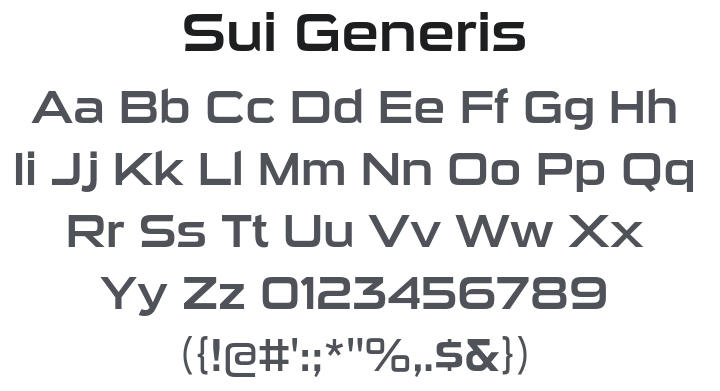
Sui Generis Font
About Sui Generis
Sui Generis blends engineered structure with subtle human warmth. Its squared forms and softened edges evoke technical lettering while remaining approachable and versatile. Open counters and angled terminals enhance legibility across text and display use, supported by four weights, two widths, italics, and an outline style for flexible hierarchy. Ideal for design, manufacturing, or tech branding that values precision without sterility, it also suits editorial, signage, and cultural materials that call for quiet confidence. Sui Generis delivers clarity, balance, and a touch of individuality in every context.